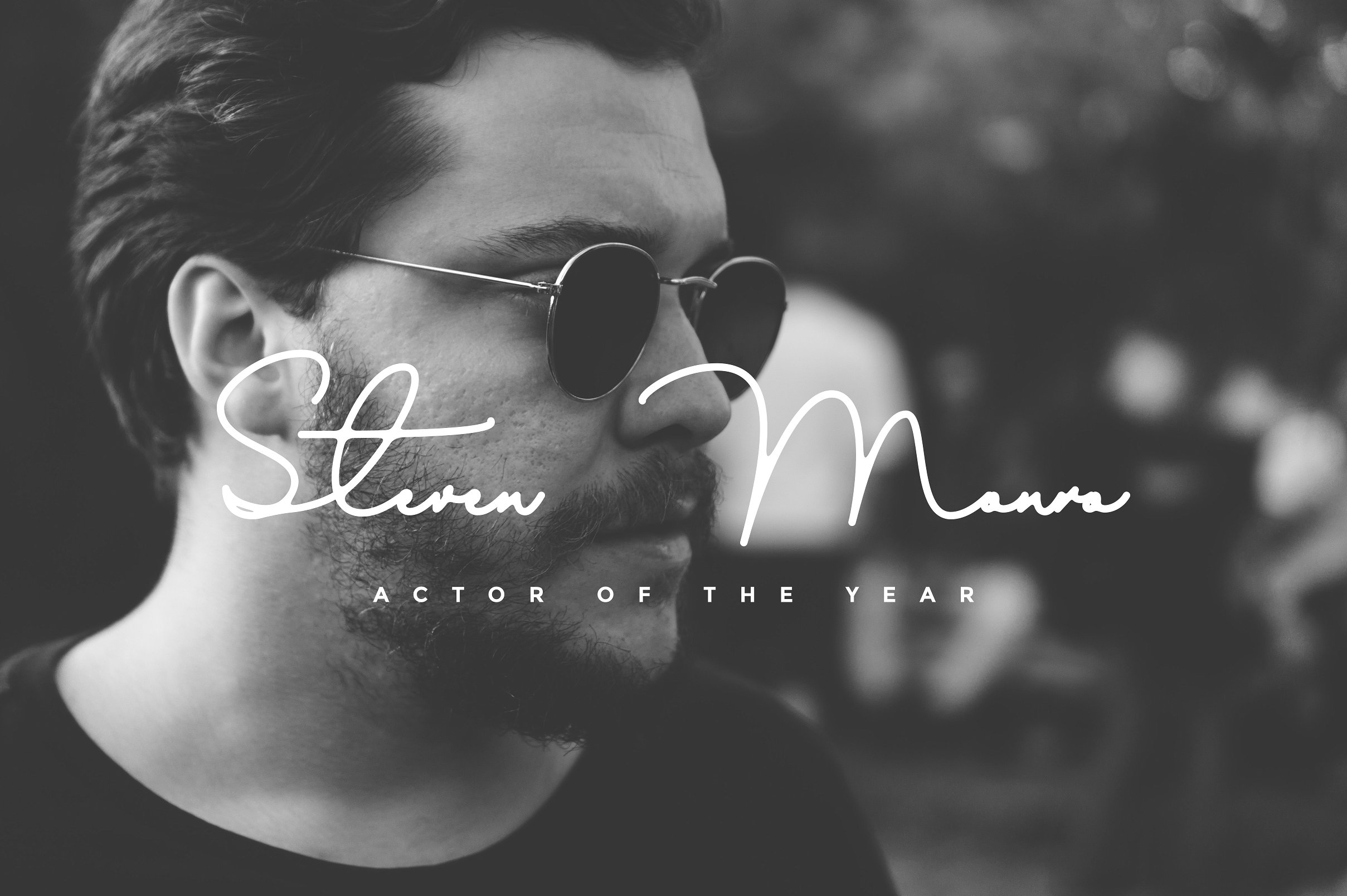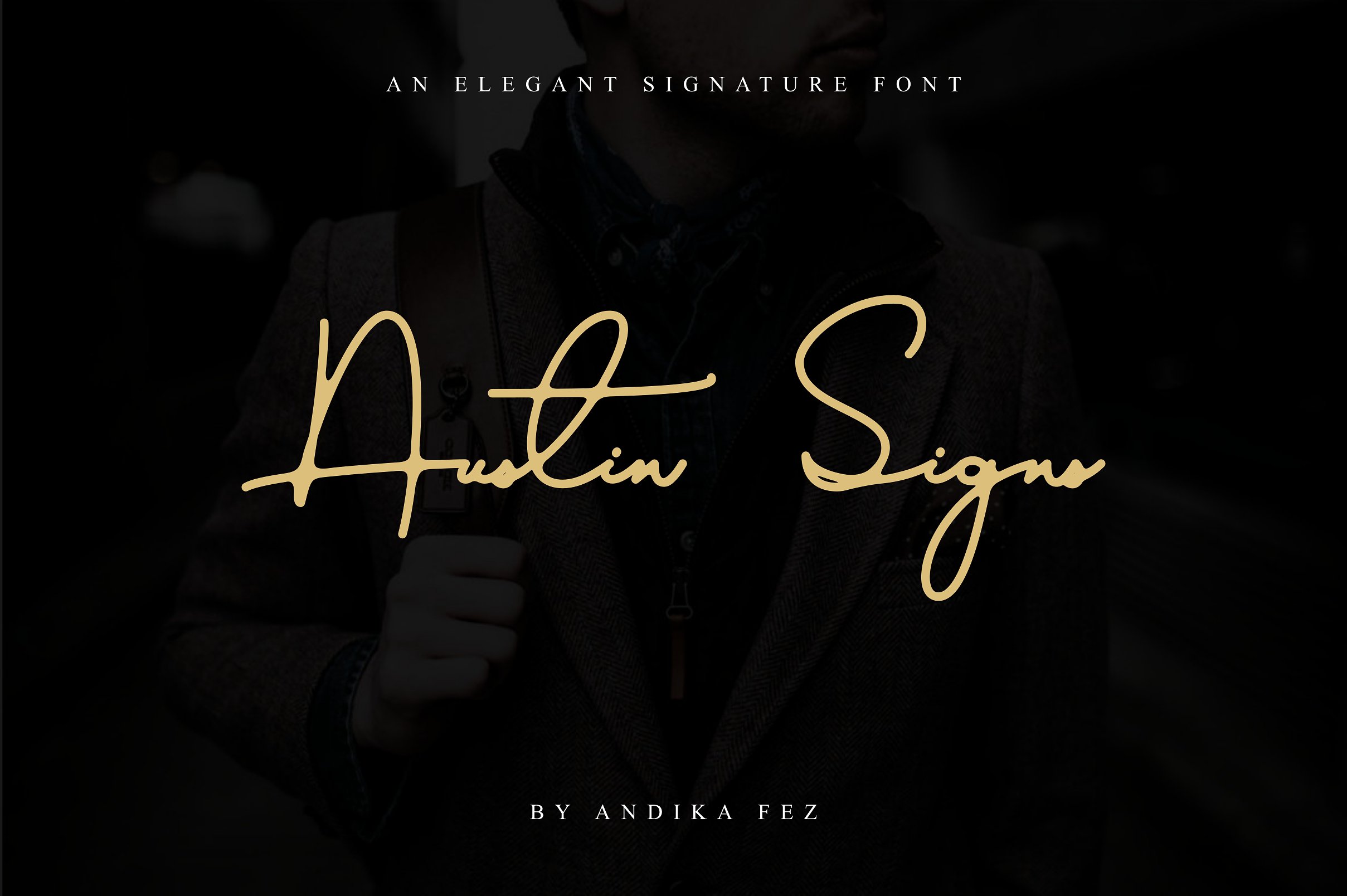
Austin Signs
Austin Signs Handwritten Font
Austin Signs is a recomended signature and handwritten font for your creative project needs. It is so suit for any creative project like logo design, id card design. card invitations, magazine layout, branding needs and many more.